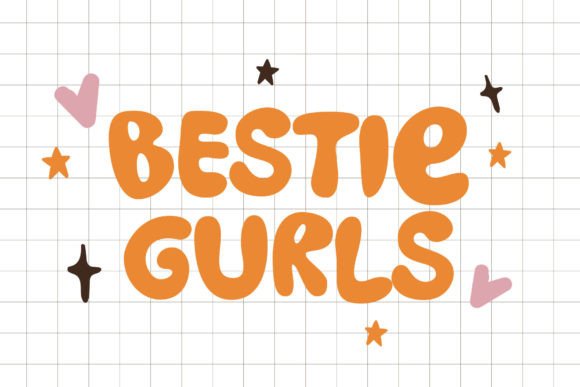
Journey into a world of boundless creativity with "Bestie Gurls" Font – a whimsical and enchanting display font that dances with childlike charm and captivating hand-drawn aesthetics. Its playful personality promises to infuse your creative visions with an unparalleled sense of cheerfulness. Carefully crafted with a cast of special characters and extensive multilingual support, this font emerges as a versatile chameleon, seamlessly adapting to an array of projects and applications.
Unleash your imagination and let "Bestie Gurls" Font take center stage in your display designs, where its gregarious nature commands attention. Picture your posters adorned with its infectious energy, quotes radiating with a touch of whimsy, book covers bursting with playful charm, and games alive with its infectious spirit. Its enchanting presence will add a touch of endearing magic to art prints and elevate any project to new heights of creativity.
With "Bestie Gurls" Font, you gain access to a rich tapestry of glyphs and ligatures, effortlessly accessible through PUA encoding. This treasure trove of typographic artistry opens limitless possibilities for customization, allowing you to weave intricate visual narratives that resonate with your audience. Trust this font to leave an indelible mark on your creative projects, captivating hearts and sparking imaginations wherever it goes.